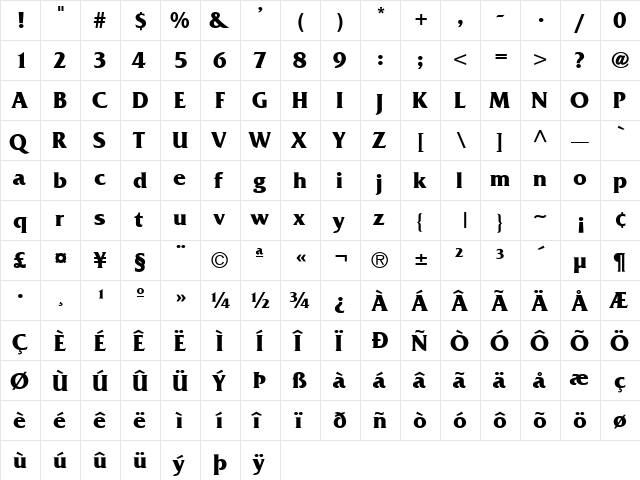
France Bold Font Preview
France Bold
Design Context for France Typeface
France offers clean, dependable letterforms without strong stylistic allegiance, making it a practical choice for designers who need flexibility. The heavy weight commands attention and anchors typographic hierarchies.